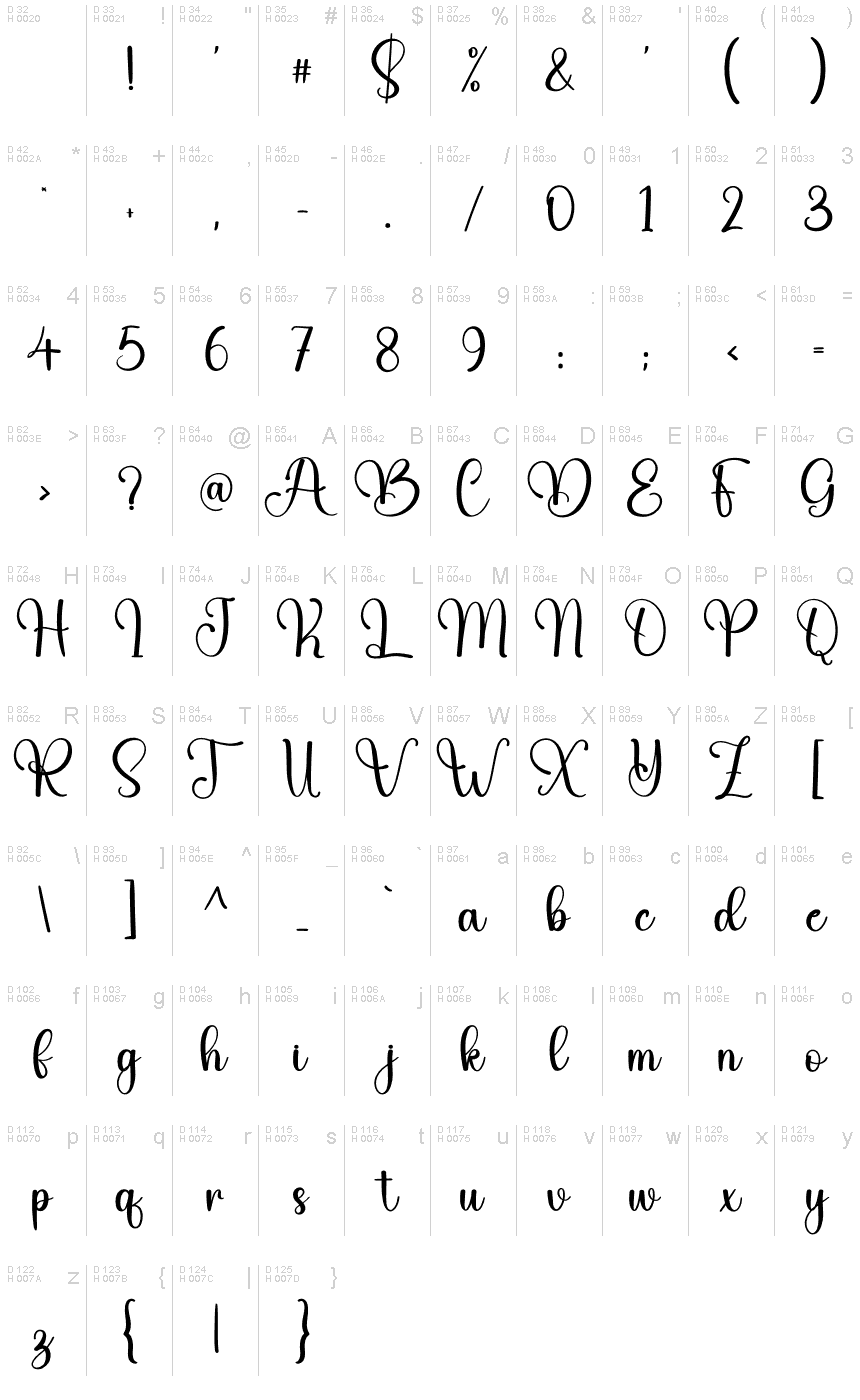
Mild
Mild, a lovely calligraphy font designed by Harlek Studio, brings a touch of elegance and grace to any project.
With its semi-light weight, Mild is perfect for creating romantic wedding invitations that exude sophistication and charm. Its flowing curves and delicate strokes make it equally suitable for designing heartfelt love letters or crafting whimsical greeting cards. This versatile font adds a touch of beauty to menus and signage in boutique cafes or high-end fashion boutiques.
Let Mild be your go-to choice for projects that require a hint of refined femininity.